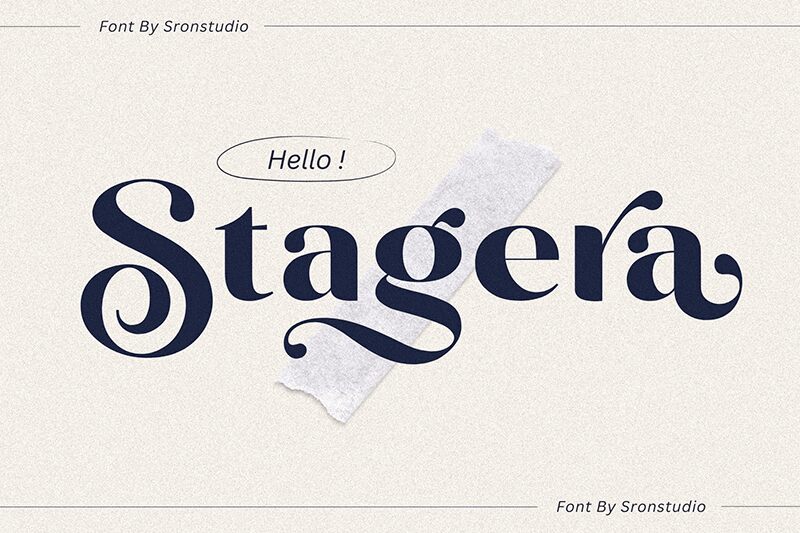
Stagera font is a sans-serif typeface crafted by Sronstudio, combining elegance with sophistication. Balancing classic serif styles with a modern twist, this font features slightly ornamental details that enhance its contemporary feel. Stagera exudes confidence and readability, maintaining functionality while introducing a dash of charm.
Use this amazing font for magazine covers, periodicals with serious topics (politics, business), editorials about fashion or interior design, sophisticated branding and logo ideas. Particularly suitable for product label design, advertisements in digital and printed media or for creating daring posters.